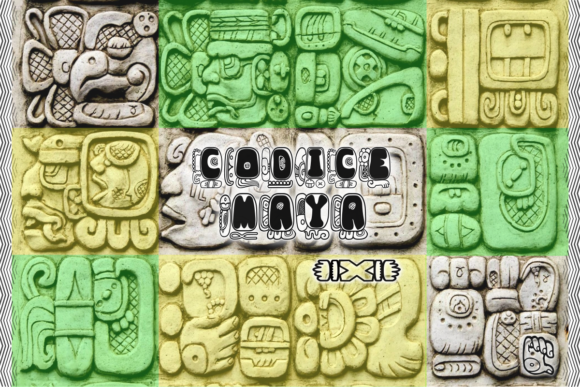
Codice Maya Font: Unleash Your Creativity with this Unique Decorative Font
In the world of typography, few fonts have managed to capture the essence of creativity and uniqueness as effectively as the Codice Maya font. This incredibly decorative font has been masterfully designed to become a true favorite among designers, artists, and anyone looking to elevate their creative projects. With its distinctive style and versatility, Codice Maya has the potential to bring each of your creative ideas to the highest level, making it an indispensable tool in your design arsenal.
The Origins of Codice Maya
Codice Maya is more than just a font; it’s a statement. Its design is inspired by ancient Mesoamerican codices, which were intricate manuscripts used by the Maya and other cultures for recording history, mythology, and astronomical data. These codices were renowned for their beautiful, intricate designs and the sense of storytelling they conveyed. The Codice Maya font captures this essence, blending traditional elements with modern design sensibilities to create something truly unique.
An example of the Codice Maya font in use, showcasing its decorative and intricate design.
Features of Codice Maya
So, what makes Codice Maya stand out from the countless fonts available today? Here are some of its key features:
- Unique Design: Codice Maya boasts a design that is both vintage and modern, making it perfect for projects that require a touch of elegance and history.
- High Versatility: Despite its decorative nature, Codice Maya can be used across a wide range of projects, from branding and advertising to packaging and digital media.
- Attention to Detail: The font is meticulously crafted, with intricate details that make it stand out in any context.
- Ease of Use: Codice Maya is designed to be user-friendly, making it easy to incorporate into your projects, even for those with limited design experience.
Applications of Codice Maya
The versatility of Codice Maya means it can be used in a variety of applications. Here are some ideas to get you started:
- Branding and Logo Design: Use Codice Maya to create a memorable brand identity that stands out from the competition.
- Digital Media: Whether it’s for a website, social media post, or digital advertisement, Codice Maya can add a touch of sophistication and creativity.
- Packaging Design: Make your product packaging more appealing with Codice Maya, ensuring it catches the eye of potential customers.
- Art and Illustration: Codice Maya can be a great tool for artists looking to add text to their illustrations or to create typographic art.
Why Choose Codice Maya?
With so many fonts available, why should Codice Maya be your go-to choice? Here are a few compelling reasons:
- Uniqueness: In a sea of generic fonts, Codice Maya offers a breath of fresh air with its unique and distinctive style.
- Quality: The font is designed with quality in mind, ensuring it looks great in any size or application.
How to Use Codice Maya Effectively
To get the most out of Codice Maya, consider the following tips:
- Pair it Wisely: When using Codice Maya alongside other fonts, choose fonts that complement its style without competing with it.
- Experiment with Sizes: Don’t be afraid to experiment with different sizes to see how Codice Maya looks in various contexts.
- Play with Colors: The font’s intricate design makes it perfect for use with creative color schemes.
Codice Maya is not just a font; it’s a creative tool that can elevate your projects to new heights. Its unique blend of traditional inspiration and modern design makes it a versatile and valuable asset for any designer. Whether you’re working on a branding project, digital media, or simply looking for a way to add some flair to your creative work, Codice Maya is an excellent choice. With its potential to bring each of your creative ideas to the highest level, Codice Maya is sure to become a favorite in your design toolkit.